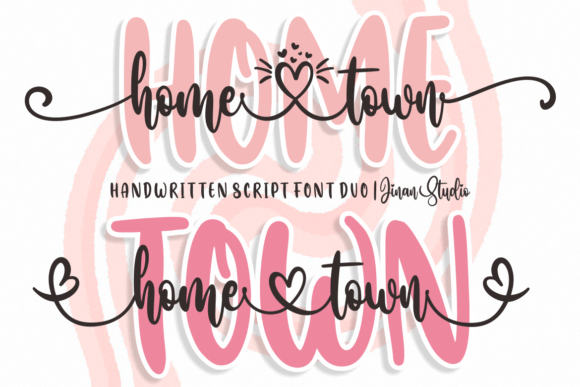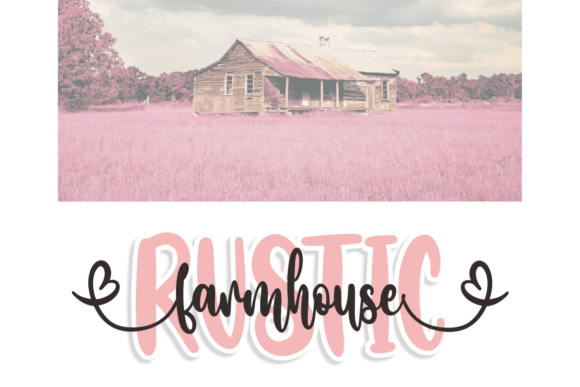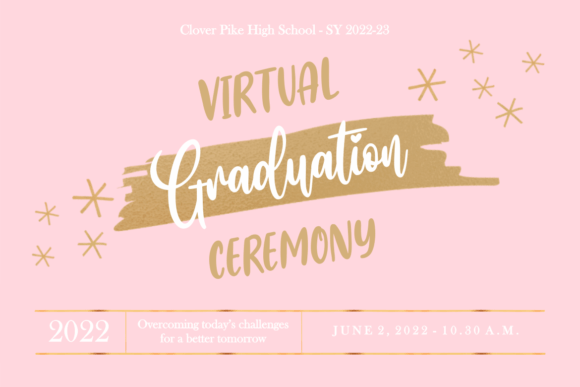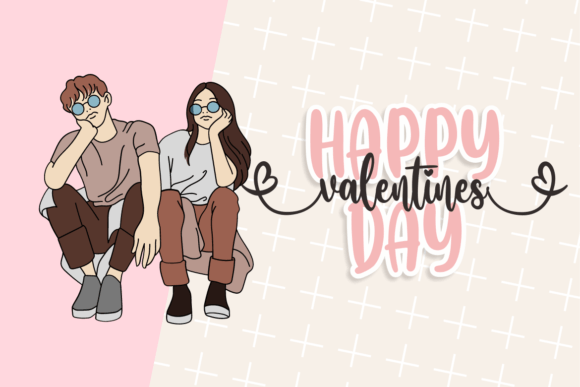
Experience the unique personality of Home Town Duo Font, a font designed for impact. Home Town Duo is a stylish and delicate duo font (script and sans serif) suitable for a wide spectrum of applications. From greeting cards to headlines, this font will guarantee a romantic touch to each of your creations! Home Town Duo is PUA encoded which means you can access all of the glyphs and swashes with ease.
Home Town Duo’s script and sans serif pairing works best for projects requiring a touch of romantic elegance, such as wedding invitations, branding for boutiques, or product packaging for beauty or lifestyle brands. Its delicate nature makes it ideal for short headlines, logos, and short-form text. However, the script font’s intricate details make it unsuitable for large blocks of body text or UI elements where readability is paramount.
For optimal pairings, consider complementing the script with a clean, geometric sans-serif like Montserrat for a modern feel, or a warmer, neutral sans-serif such as Lato for a more approachable aesthetic. Pairing the sans-serif with a classic serif like Garamond or Playfair Display could create a sophisticated and timeless look.
The overall personality of Home Town Duo is romantic and delicate, but with a touch of playfulness thanks to the swashes. Avoid using it for projects requiring a strong, bold, or serious tone; its strength lies in its subtle charm and graceful forms.